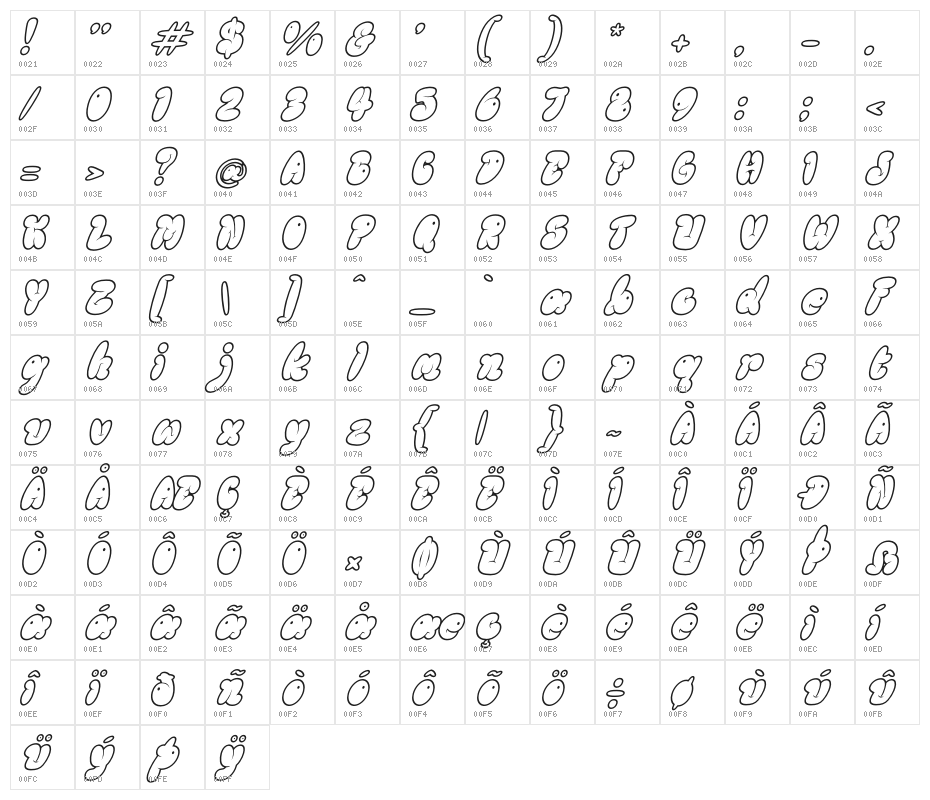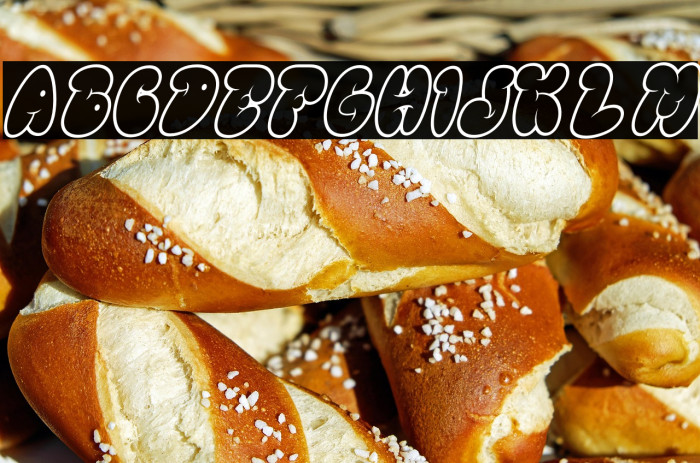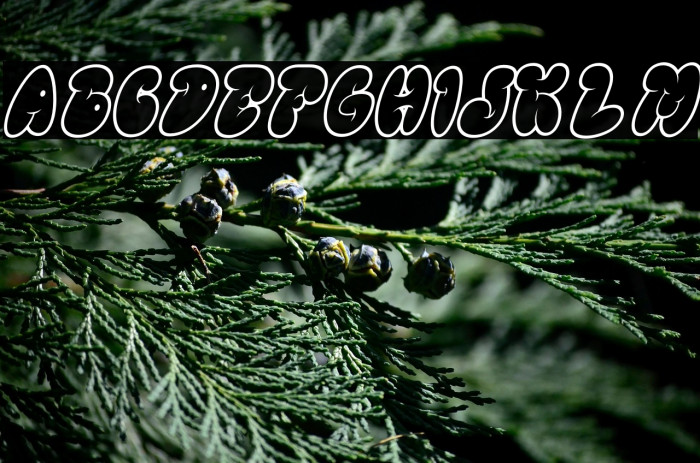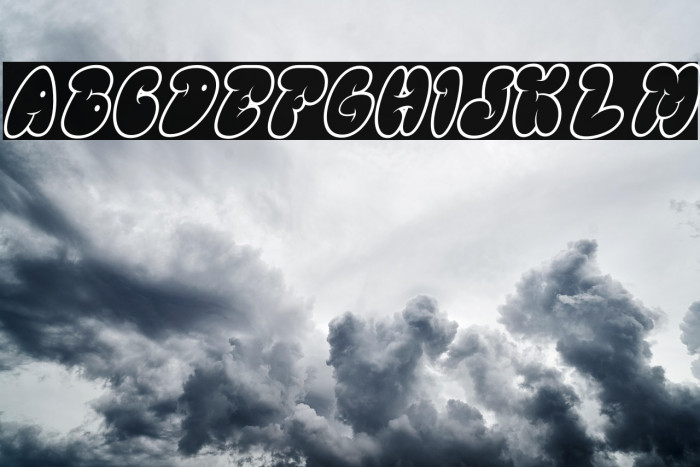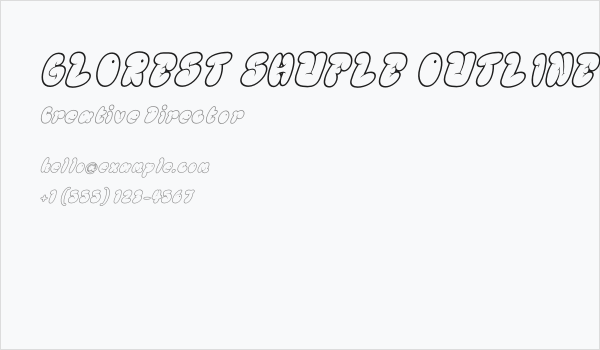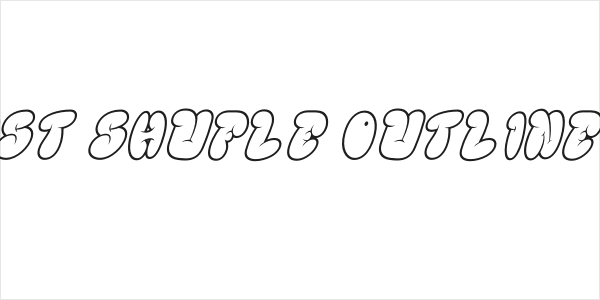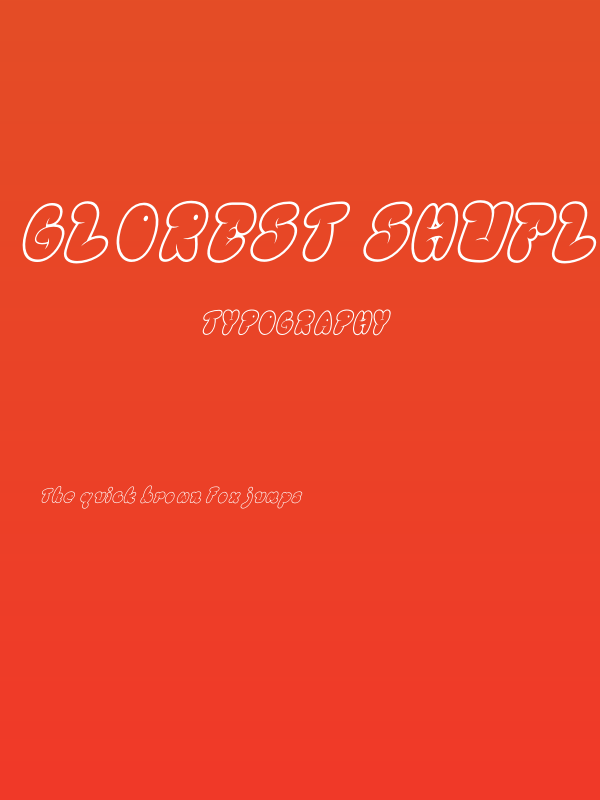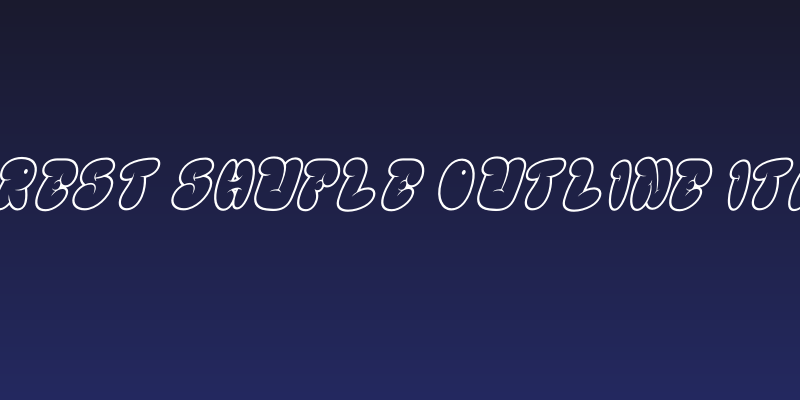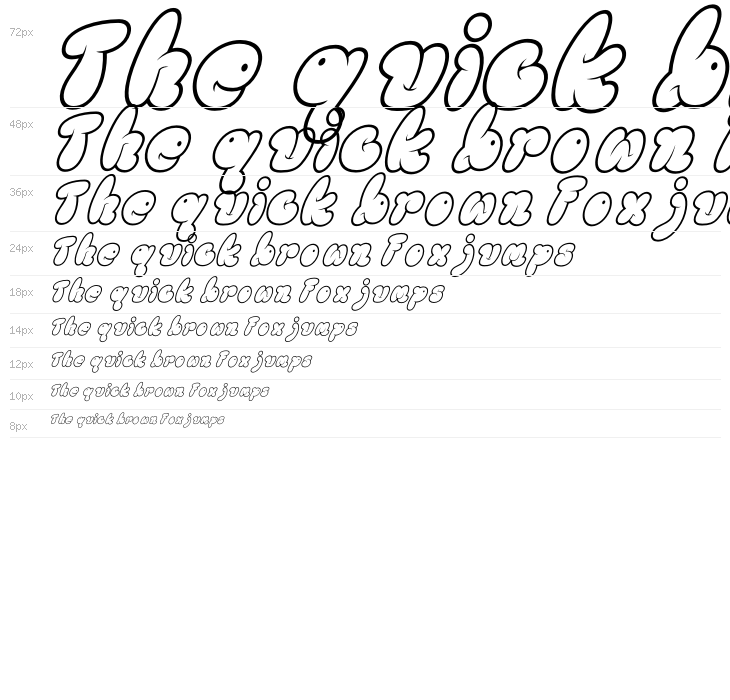
GLOREST SHUFLE OUTLINE Italic Font
GLOREST SHUFLE OUTLINE Italic Description
This playful and dynamic font features a bold outline style with a distinct italic slant, giving it a lively and energetic appearance. The characters are rounded and bubbly, with a consistent thickness throughout, creating a cohesive and harmonious look. The uppercase and lowercase letters maintain a uniform style, while the numbers and special characters complement the overall design. This font's outline effect adds a layer of depth and dimension, making it stand out in any design project.
| Proposed Projects | Ideal for children's books, playful branding, posters, and creative invitations. |